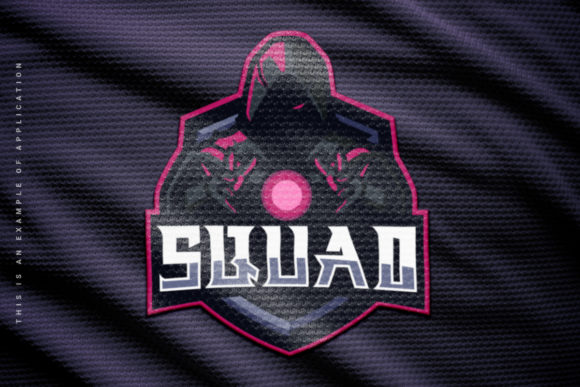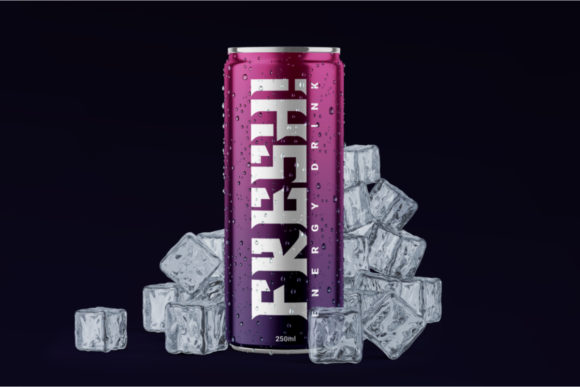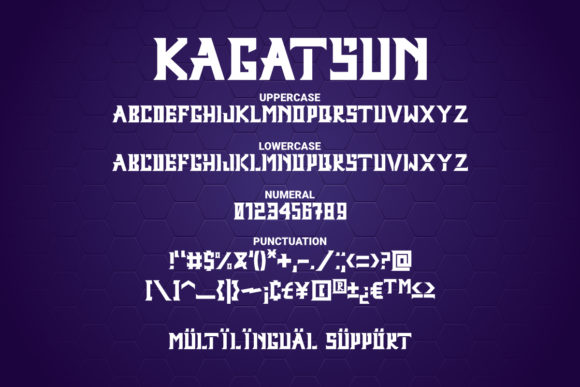
Introduction to Kagatsun Font
Kagatsun is a bold and thick lettered display font.
This font reads as strong, confident, and dynamic and can add tons of energy to your designs .
Key Features of Kagatsun Font
Why Choose Kagatsun Font?